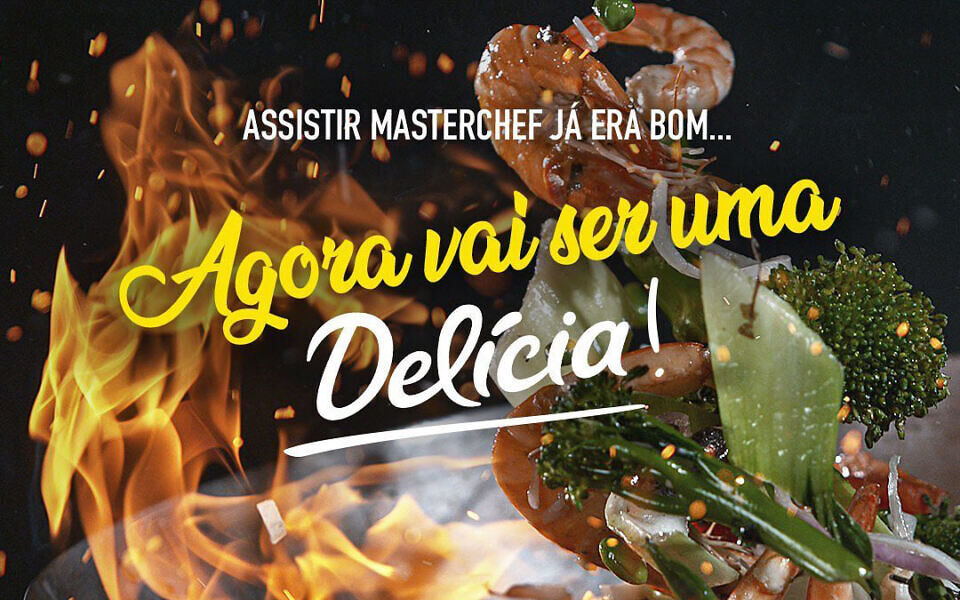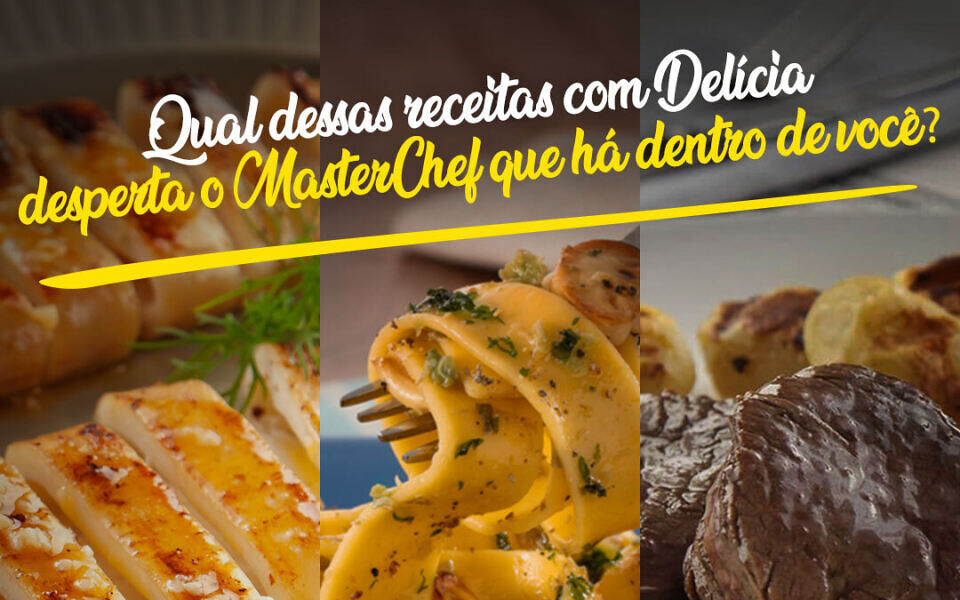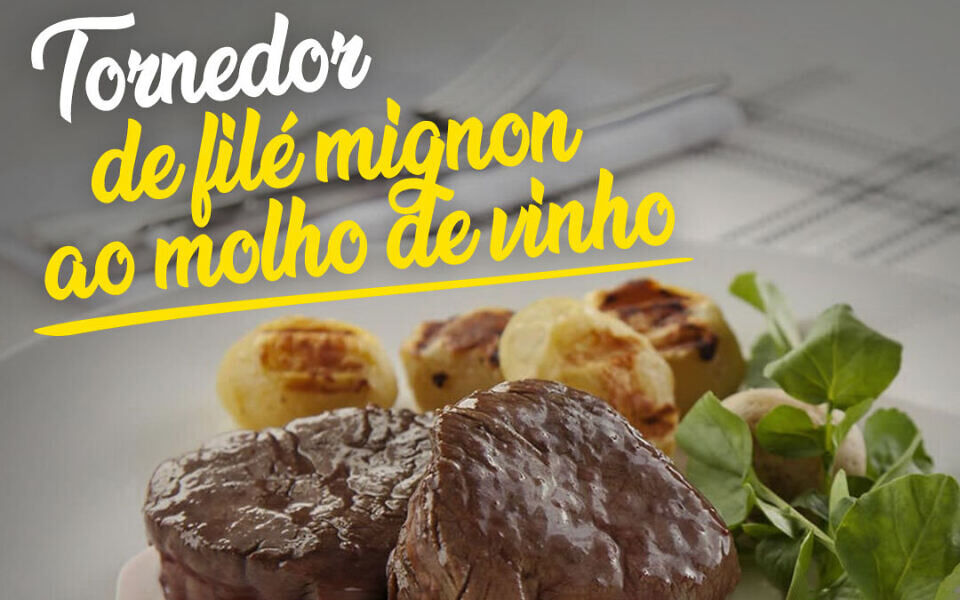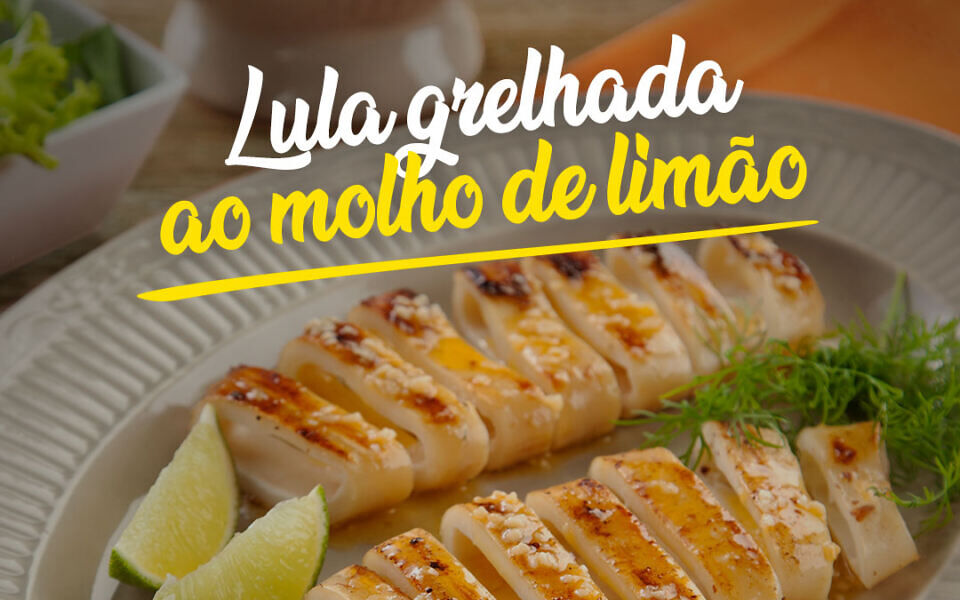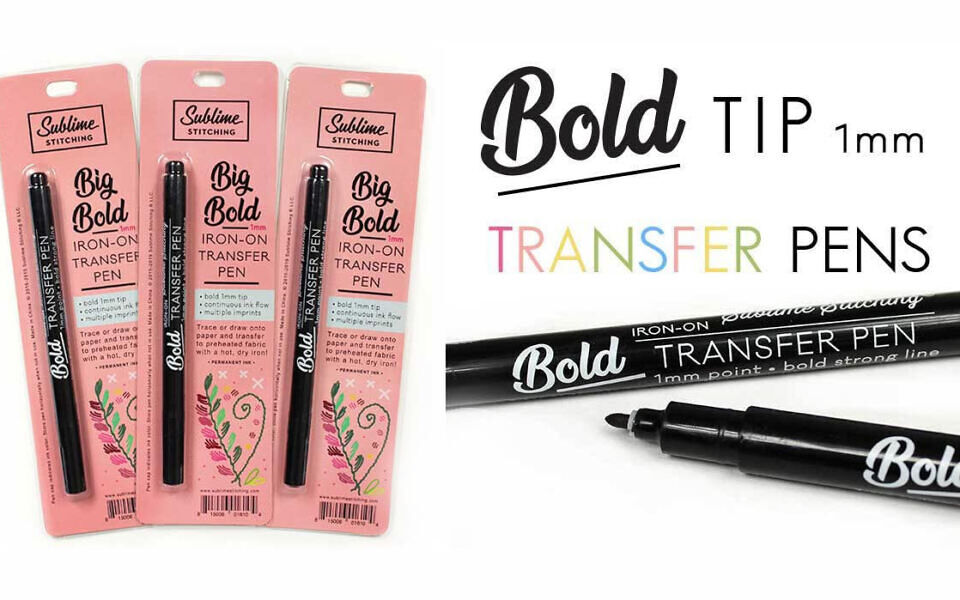
Nature Beauty Font
Nature Beauty is a stylish and elegant script font by Billy Argel, perfect for adding a handcrafted touch to your designs. Featuring smooth curves and flowing letterforms, it evokes a natural charm ideal for logos, branding, invitations, and social media graphics.
With its graceful swashes and modern calligraphy style, Nature Beauty brings a warm, organic feel to any creative project. Whether you’re aiming for sophistication or a rustic vibe, this font delivers beauty and versatility in every letter.